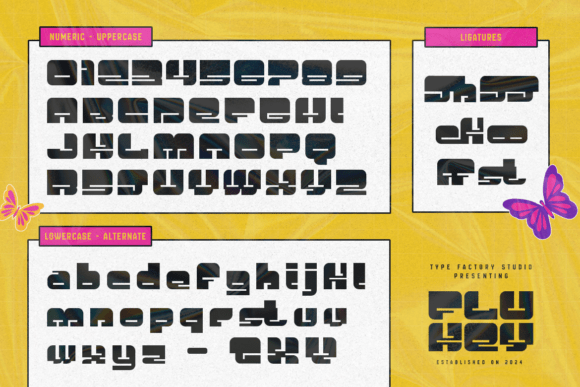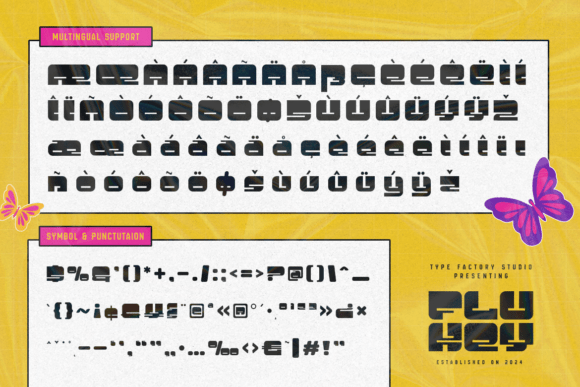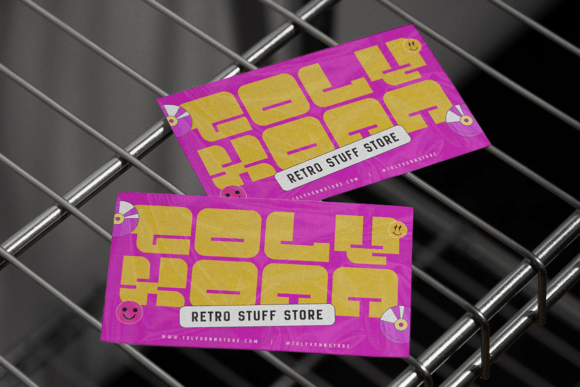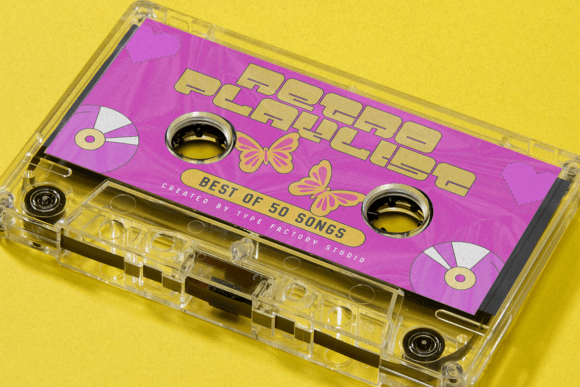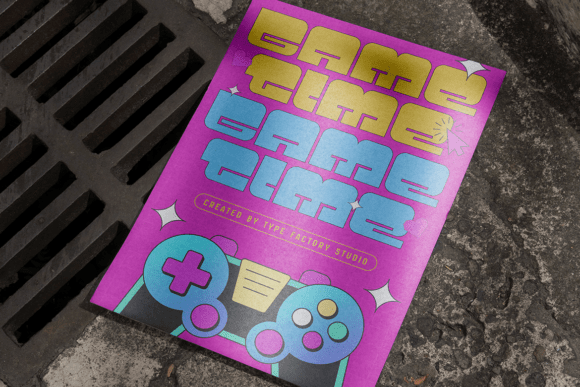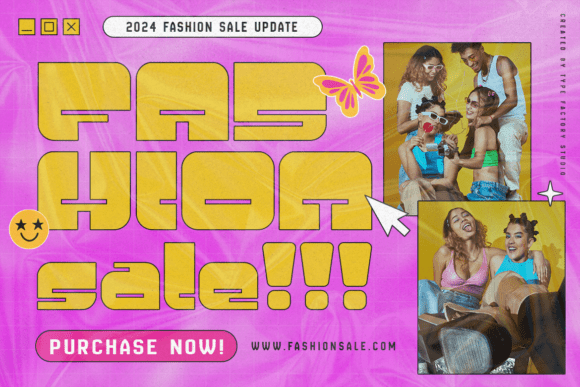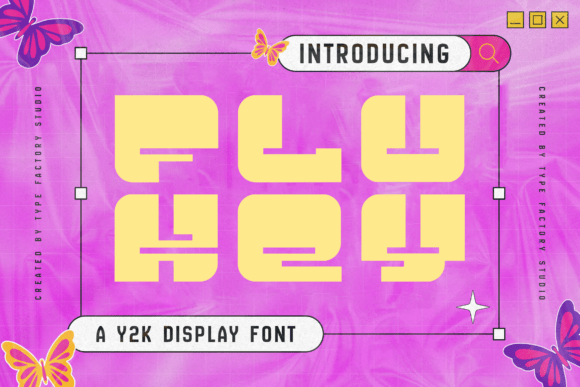
Introducing Flukey Font: A Y2K-Inspired Display Typeface for Bold Designs
In the world of typography, a new font has emerged that’s about to take your designs back to the future – Flukey Font. This Y2K-inspired display typeface is a bold, geometric, and futuristic retro styling font that’s perfect for creating eye-catching posters, gaming titles, branding, digital graphics, packaging, and experimental layouts. With its chunky shapes and distinctive cuts, Flukey Font is sure to make a strong visual impact and leave a lasting impression on your audience.
The Inspiration Behind Flukey Font
Flukey Font draws inspiration from the digital aesthetics of early 2000s design, a time when the internet was still in its infancy, and Y2K was all the rage. The font’s bold, geometric letterforms and futuristic retro styling are reminiscent of the era’s iconic design elements, such as glitch art, neon colors, and bold typography. With Flukey Font, you can bring a touch of nostalgia to your modern designs while still making them feel fresh and contemporary.
Key Features of Flukey Font
So, what makes Flukey Font so special? Here are some of its key features:
- Uppercase and Lowercase Characters: Flukey Font includes both uppercase and lowercase characters, giving you the flexibility to create a wide range of designs, from bold headlines to subtle body text.
- Numerals, Punctuation, and Ligatures: The font also includes numerals, punctuation marks, and ligatures, making it a comprehensive and versatile typeface.
- Multilingual Support: With multilingual support, Flukey Font can be used for designs that require non-English characters, making it perfect for global brands and international projects.
- Chunky Shapes and Distinctive Cuts: The font’s chunky shapes and distinctive cuts create a strong visual impact, making it perfect for posters, gaming titles, and other attention-grabbing designs.
Use Cases for Flukey Font
So, what can you use Flukey Font for? The possibilities are endless, but here are some ideas to get you started:
- Posters: Create eye-catching posters for concerts, festivals, or events with Flukey Font’s bold and geometric letterforms.
- Gaming Titles: Use Flukey Font to create bold and futuristic titles for gaming projects, such as logos, UI elements, or marketing materials.
- Branding: Add a touch of nostalgia to your brand identity with Flukey Font’s retro-futuristic styling.
- Digital Graphics: Use Flukey Font to create bold and attention-grabbing digital graphics, such as social media posts, banners, or ads.
- Packaging: Add a bold and eye-catching touch to your product packaging with Flukey Font.
- Experimental Layouts: Use Flukey Font to create experimental and avant-garde designs that push the boundaries of typography and visual expression.
Why Choose Flukey Font?
With so many fonts available, why choose Flukey Font? Here are a few reasons:
- Unique and Memorable: Flukey Font’s bold and geometric letterforms make it a unique and memorable typeface that’s sure to stand out.
- Versatile: With its comprehensive character set and multilingual support, Flukey Font is a versatile typeface that can be used for a wide range of designs.
- Nostalgic yet Modern: Flukey Font’s retro-futuristic styling makes it a perfect blend of nostalgia and modernity, allowing you to create designs that feel both vintage and contemporary.
In conclusion, Flukey Font is a bold, geometric, and futuristic retro styling typeface that’s perfect for designers and crafters looking to add a touch of nostalgia to their modern designs. With its comprehensive character set, multilingual support, and unique letterforms, Flukey Font is a versatile and memorable typeface that’s sure to make a strong visual impact. Whether you’re creating posters, gaming titles, branding, digital graphics, packaging, or experimental layouts, Flukey Font is the perfect choice for bold and eye-catching designs.